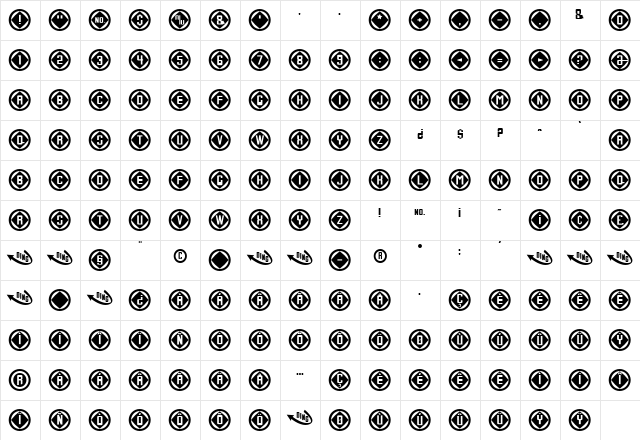
Console Regular Font Preview
Console Regular
Design Context for Console Typeface
Console is a composed and adaptable typeface that performs quietly and consistently across a wide range of design contexts.